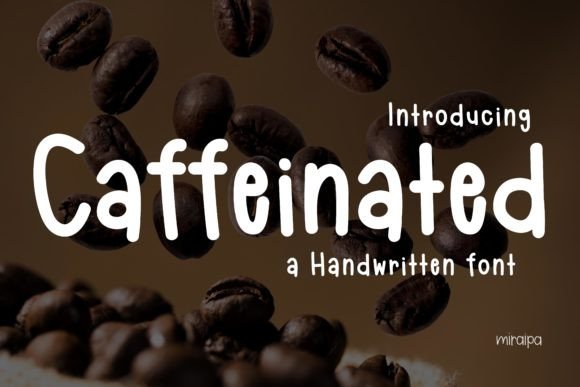
**Feast Your Eyes on Caffeinated Font: The Elixir for Enchanting Designs**
Quench your thirst for captivating fonts with Caffeinated Font, the ultimate pick-me-up for your creative endeavors. This delightful sans-serif font exudes a friendly and inviting aura, ready to inject a burst of charm into your designs.
Imagine your wedding invitations blooming with elegance, your party decorations brimming with joy, and your diary planner whispering secrets in the most endearing way. Caffeinated Font has the power to transform your creations into instant showstoppers.
Whether you're a creative professional or a weekend crafter, this font will become your go-to companion. Its versatility extends to a myriad of projects, from back-to-school supplies to festival posters, from clothing designs to social media posts.
With Caffeinated Font, you'll discover a font that speaks to your heart and ignites your imagination. Its charming strokes will dance across your projects, bringing a touch of warmth and delight to every page.